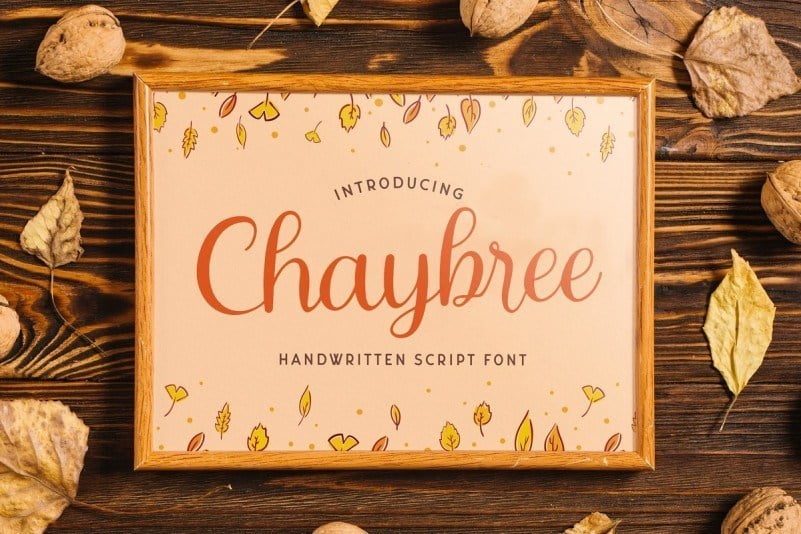
Chaybree Calligraphy Script Font
Introducing Chaybree Font new handwriting calligraphy typography, which combines classic style with modern calligraphic style of smooth font and looks very soft tug so there is a natural style.